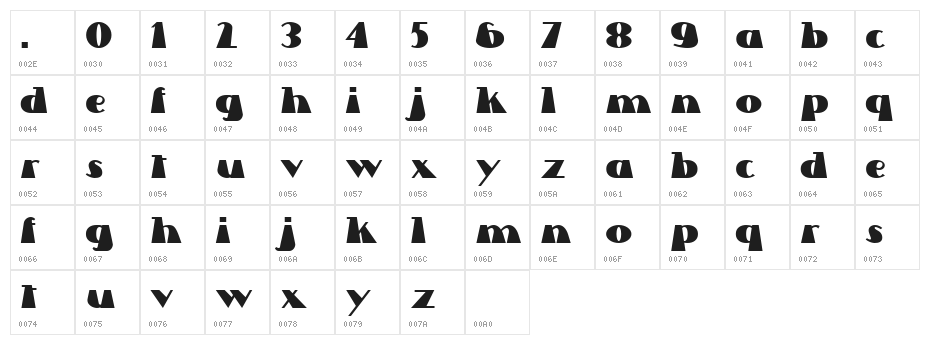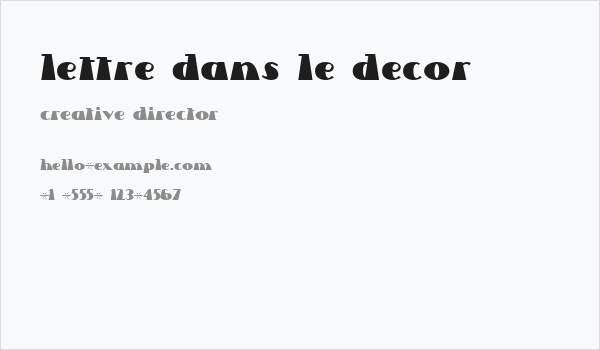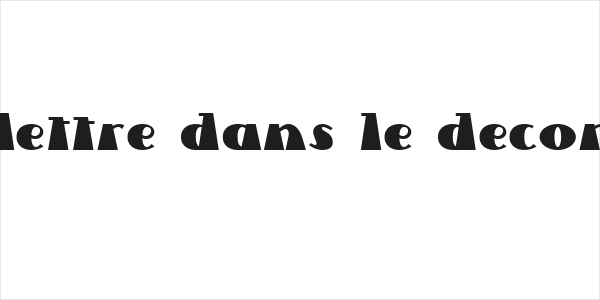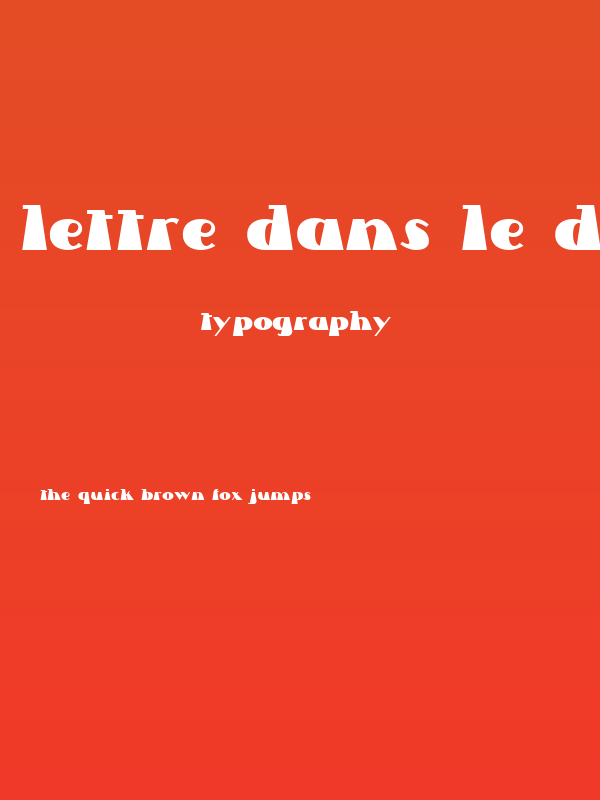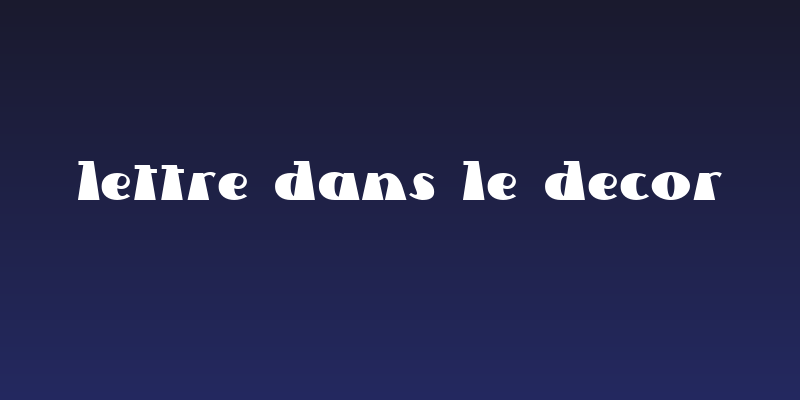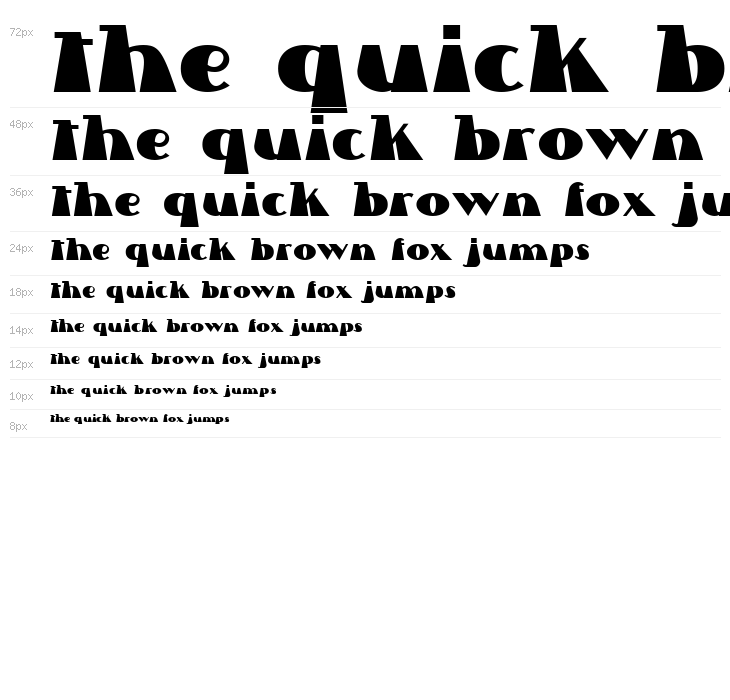
Lettre Dans Le Decor Font
Lettre Dans Le Decor Description
This font exhibits a bold and dynamic style with a distinctive geometric flair. The characters are crafted with sharp angles and a strong presence, making it ideal for attention-grabbing designs. The uppercase and lowercase letters maintain a consistent weight, contributing to a cohesive look. The numbers are equally bold, ensuring readability and impact. Special characters are designed with the same boldness, adding to the font's versatility. The overall design is modern and striking, suitable for a variety of creative applications.
| Proposed Projects | Ideal for branding, poster design, and headlines where a strong visual impact is desired. |